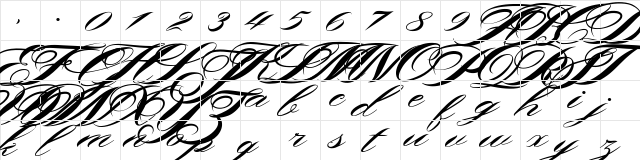
Shergine Demo Regular
| Foundry | Suandana Ipandemade |
| Designer | Suandana Ipandemade |
Design Context for Shergine Demo Typeface
Shergine Demo is a composed and adaptable typeface that performs quietly and consistently across a wide range of design contexts.